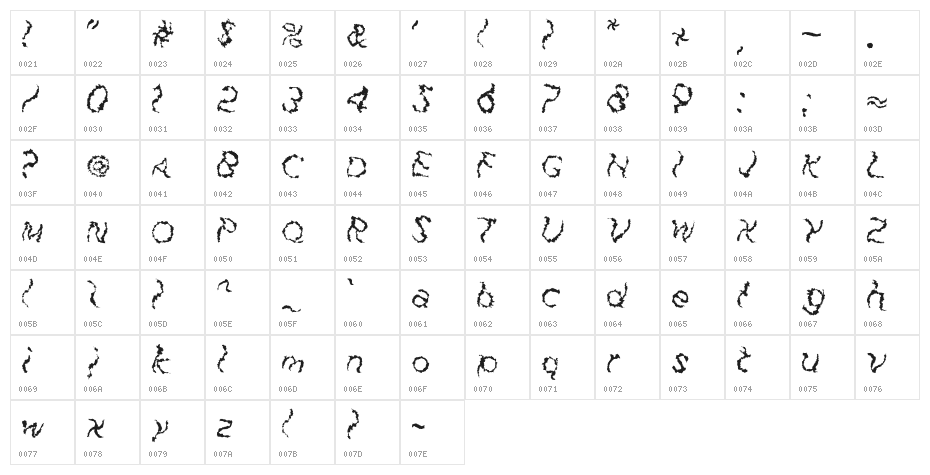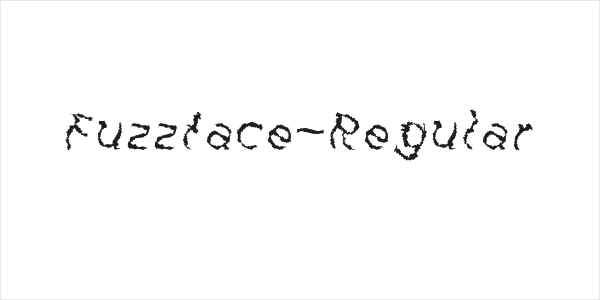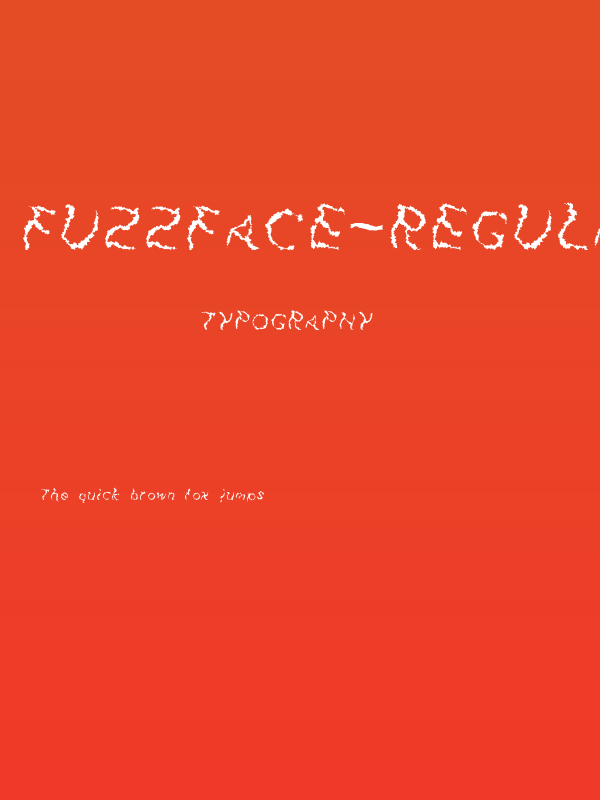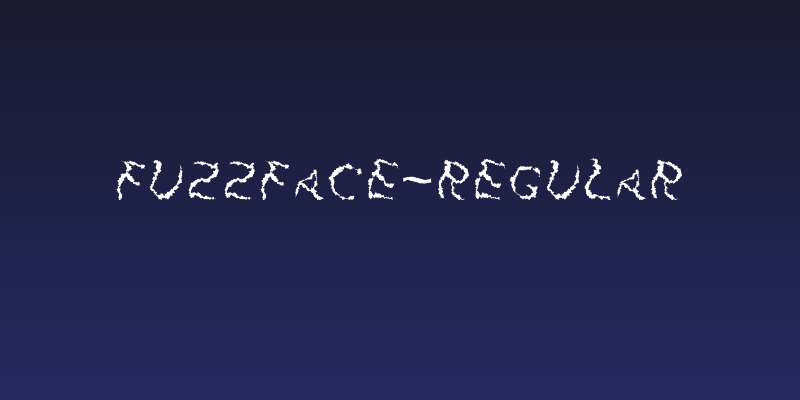
Fuzzface-Regular Font
Fuzzface-Regular Description
This font features a highly distinctive and textured appearance, reminiscent of organic or natural forms. The edges of each character are irregular and jagged, creating a sense of movement and energy. Despite its chaotic look, the font maintains legibility, with each letterform clearly distinguishable. The uppercase and lowercase letters share a consistent style, while the numerals and special characters integrate seamlessly into the overall design. This font's unique aesthetic makes it stand out, offering a creative and artistic flair.
| Use Case | Logos, Posters, Creative Branding |
| Proposed Projects | Ideal for artistic projects, album covers, posters, and creative branding that seeks to convey a sense of nature or dynamism. |